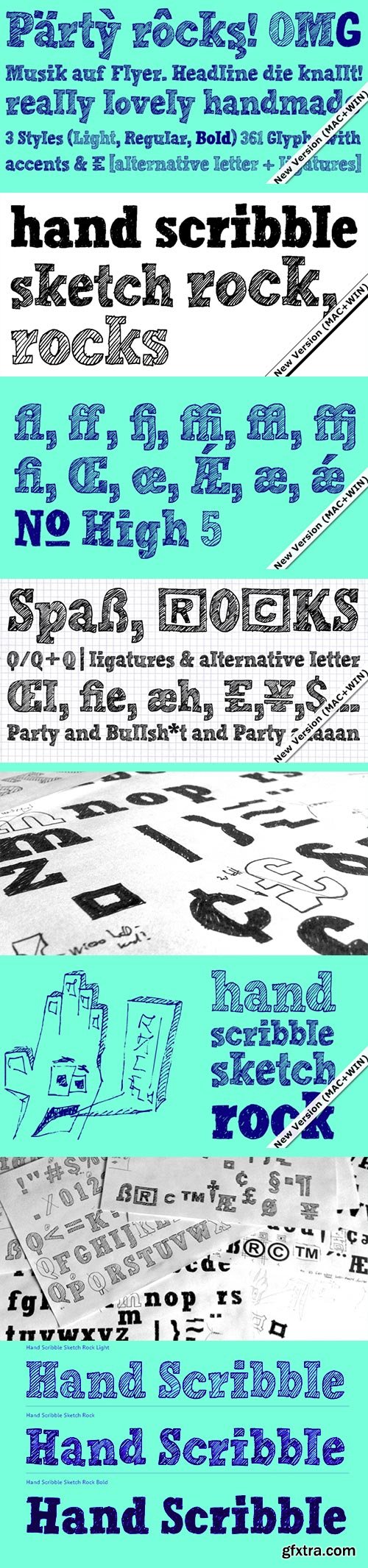
Hand Scribble Sketch Rock
- APPLICATION AREA : This heavy, sketched, scribbled, handmade slab serif font “Hand Scribble Sketch Rock” with many language support would look good in headlines. Magazines or websites, party flyer, movie posters, music Poster, music covers or webbanner.
- TECHNICAL SPECIFICATIONS : Headline Font | Display Font | Slab Serif “Hand Scribble Sketch Rock”. An OpenType Font (Mac + Win) with 361 glyphs, alternative letters and ligatures (with accents & €) & 3 styles (regular, bold, light)